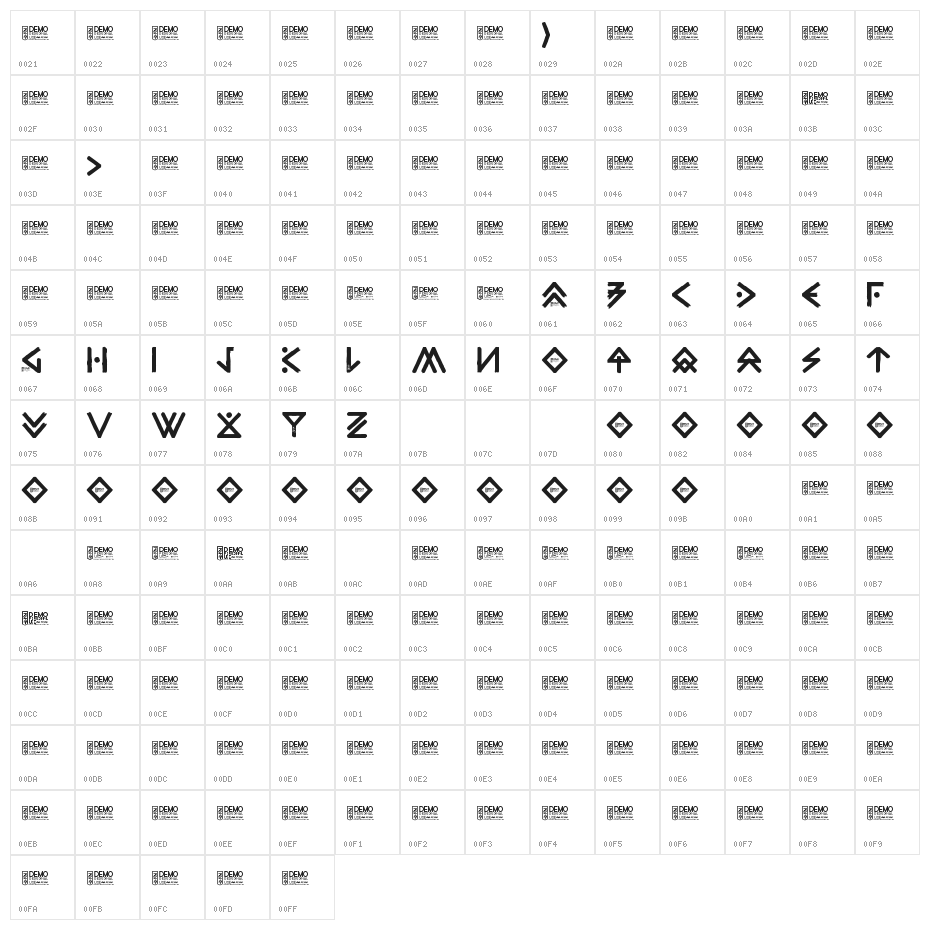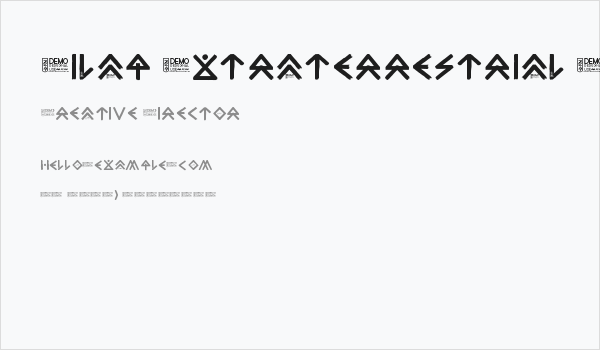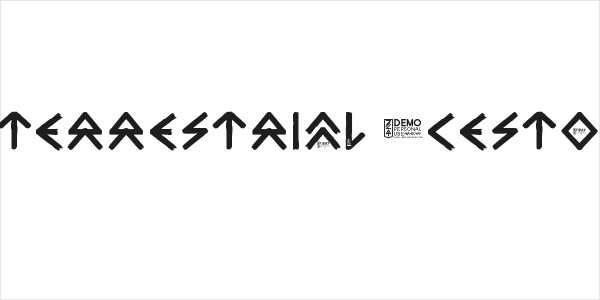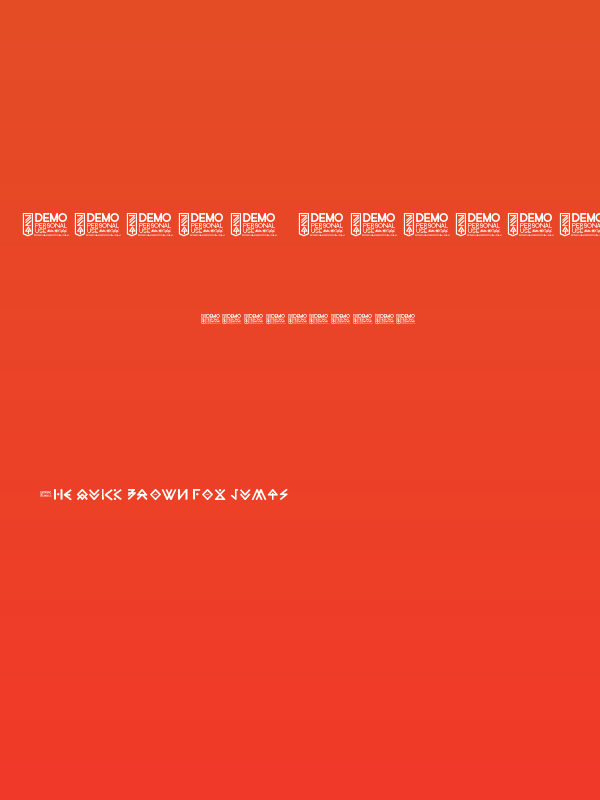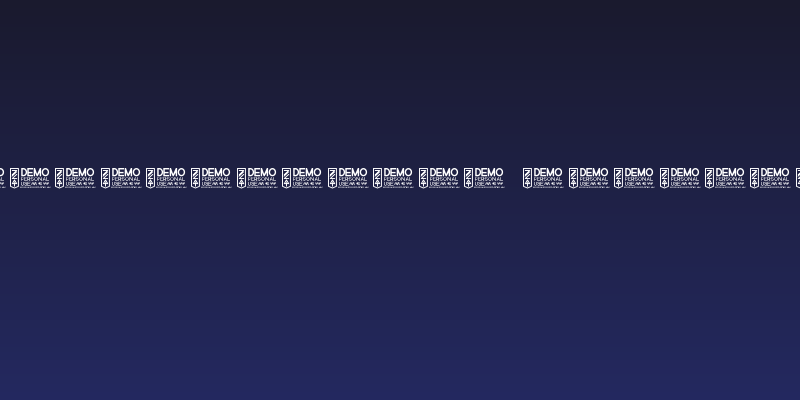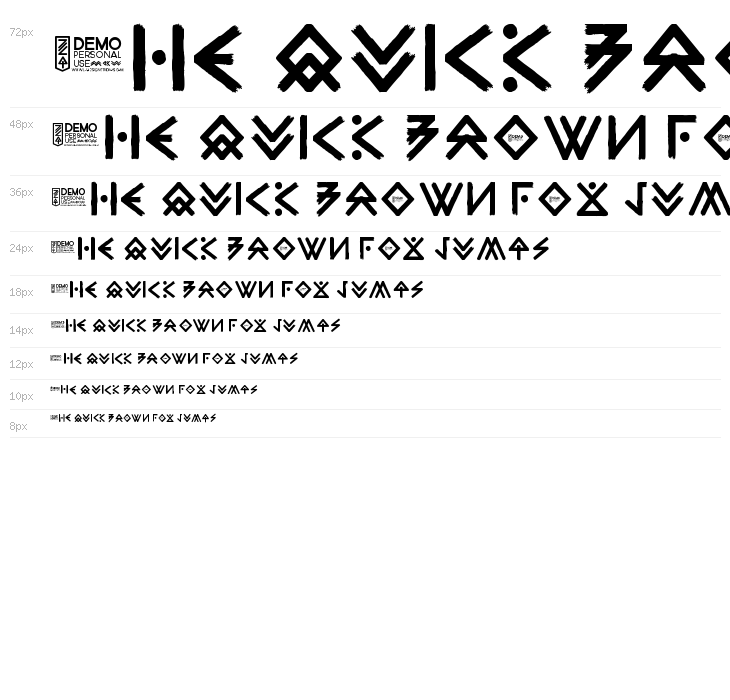
Zilap Extraterrestrial Acestors Cultural Font
Zilap Extraterrestrial Acestors Cultural Description
This font features a bold and striking design with a distinctly futuristic and extraterrestrial aesthetic. The characters are crafted with sharp, angular lines and geometric shapes, giving them a unique and otherworldly appearance. Each letter is stylized with a sense of mystery and intrigue, reminiscent of ancient symbols or alien scripts. The uppercase letters are particularly prominent, with a strong presence that commands attention. The overall design is both decorative and functional, making it suitable for a variety of creative projects that require a touch of the unusual or the avant-garde.
| Overall Style | Futuristic, Decorative |
| Proposed Projects | Ideal for science fiction book covers, movie posters, video game titles, and branding for tech or space-related products. |